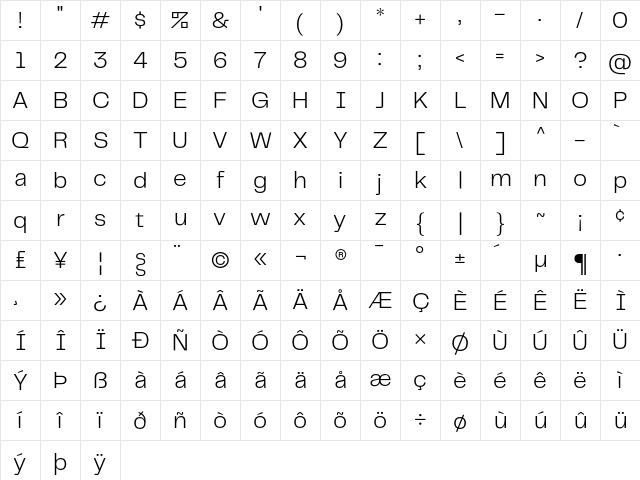
Telegraf Light Free Font
Telegraf Light
Foundry: Pangram Pangram￿
Designer: Nick Losacco
Telegraf Family
Telegraf Light
Design Context for Telegraf
Telegraf is a composed and adaptable typeface that performs quietly and consistently across a wide range of design contexts. Its slender proportions lend an understated elegance to any composition.
Who designed the Telegraf Light font?